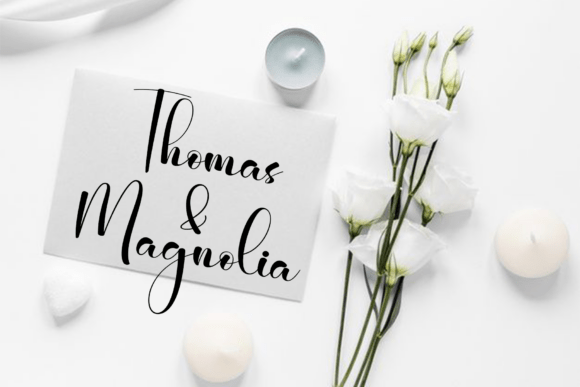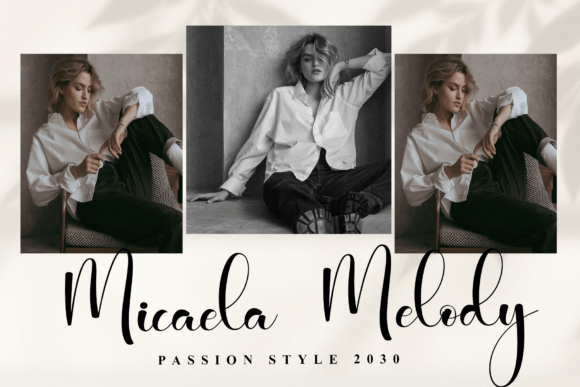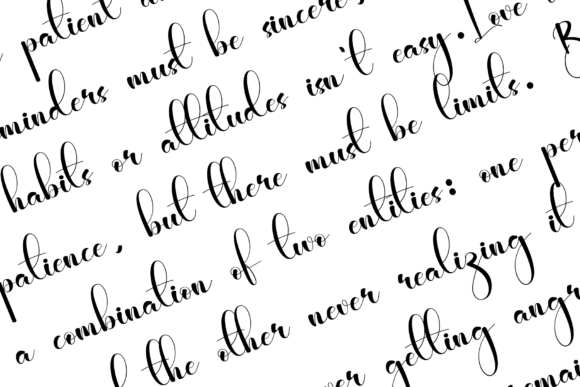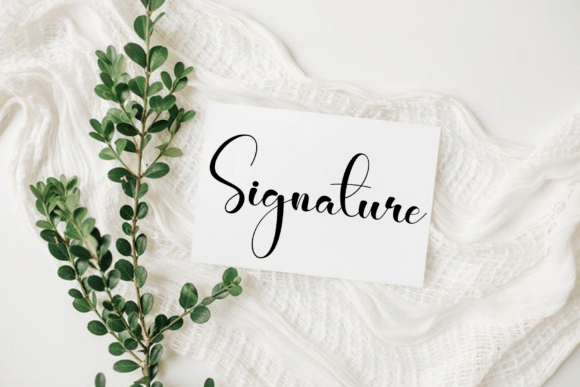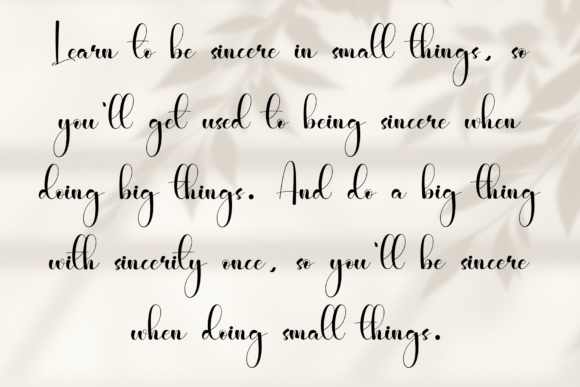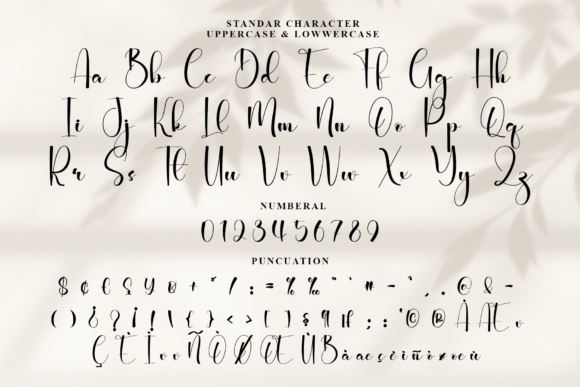
The Perfect Script for a Romantic Touch
As designers, we’ve all been there – staring at a blank page, trying to convey the perfect message to our audience. And then, like magic, it happens. A word, a phrase, a sentence that speaks directly to our hearts. For me, it was the phrase ‘Will you marry me?’ scrawled in a beautiful, flowing script that sealed the deal. It was then that I knew I had to find the perfect font to make my designs truly unforgettable.
Enter Angelina Font, a luxurious and elegant calligraphy script that exudes romance and sophistication. This exquisite font is perfect for designers looking to add a touch of vintage glamour to their high-end designs. With its dramatic capital letters, impressive terminal swashes, and high-contrast strokes, Angelina Font is the ultimate tool for creating stunning typographic layouts that leave a lasting impression.
Angelina Font Key Features
- Font Family: Angelina is a script font, designed to mimic handwritten text.
- Unique Characteristics: Angelina features flowing connections, subtle flourishes, and a mix of cursive and calligraphic elements, giving it a distinctive, elegant look.
- Language Support: Supports a wide range of languages, including Latin-based scripts and some non-Latin scripts, making it a versatile choice for global applications.
Designer Review: Angelina Font
Overall, I think the Angelina Font is a beautiful script font that works well in various contexts. ✨ Here are some of its strengths:
- The flowing, handwritten feel makes it perfect for titles, headings, and quotes.
- The font’s elegant design and refined lines give it a sophisticated touch, suitable for luxury brands or high-end products.
- The character set is comprehensive, making it easy to use in a variety of languages.
- The font may be challenging to read in smaller sizes due to its intricate design.
- The letter spacing can be a bit tight, which may affect readability in some cases.
- The font doesn’t come with a wide range of weights, which may limit its versatility.
Overall, I think the Angelina Font is a lovely addition to any designer’s toolkit. While it has some limitations, its unique character and elegant design make it a great choice for the right project. With careful use, it can add a touch of sophistication and whimsy to any design.
Angelina Font is ideal for adding a touch of elegance to wedding invitations, birthday party decorations, and other special occasion designs.
Angelina Font is perfect for creating beautiful typography in editorial designs, branding materials, and marketing collateral.
Angelina Font is ideal for adding a touch of sophistication to presentations, reports, and business documents.
Angelina Font is perfect for:
- Wedding invitations and decorations
- Editorial designs and publications
- Use it in combination with elegant graphics and illustrations.
- Experiment with different font